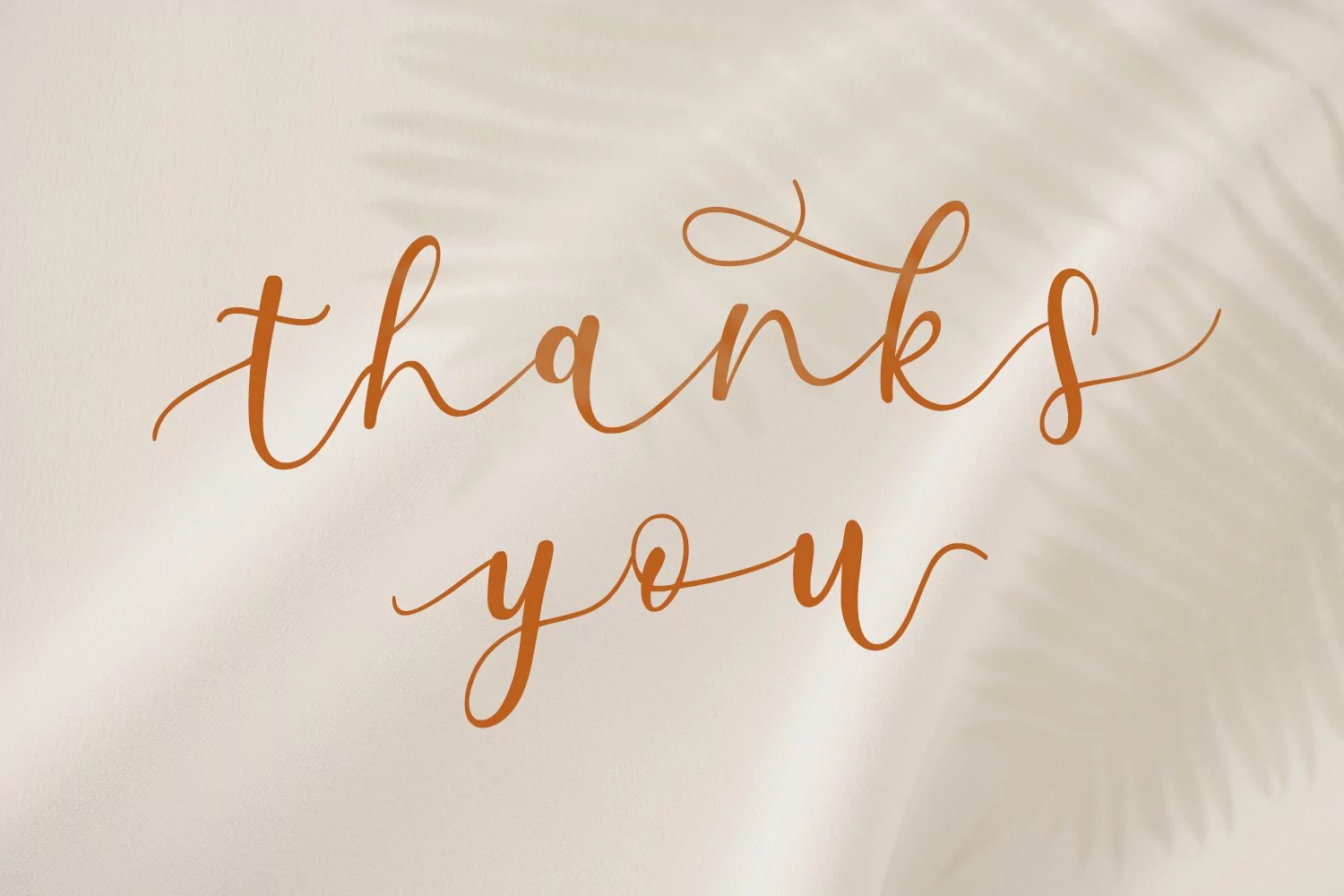
Present ” Milda – A Bouncy Calligraphy Font“.
It is funny but elegant .
It’s the perfect fit for all luxury projects, such as wedding invitation, signatures, luxury logos, printed quotes, grettings cards, social media headers, product packaging and many more!
It includes a full set of uppercase and lowercase letters, multilingual symbols, numerals, punctuation and ligatures.